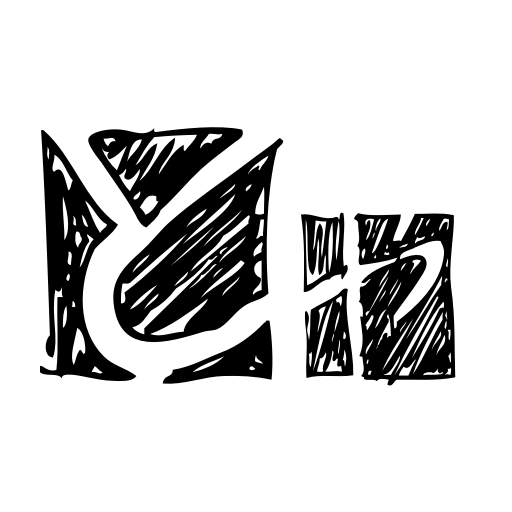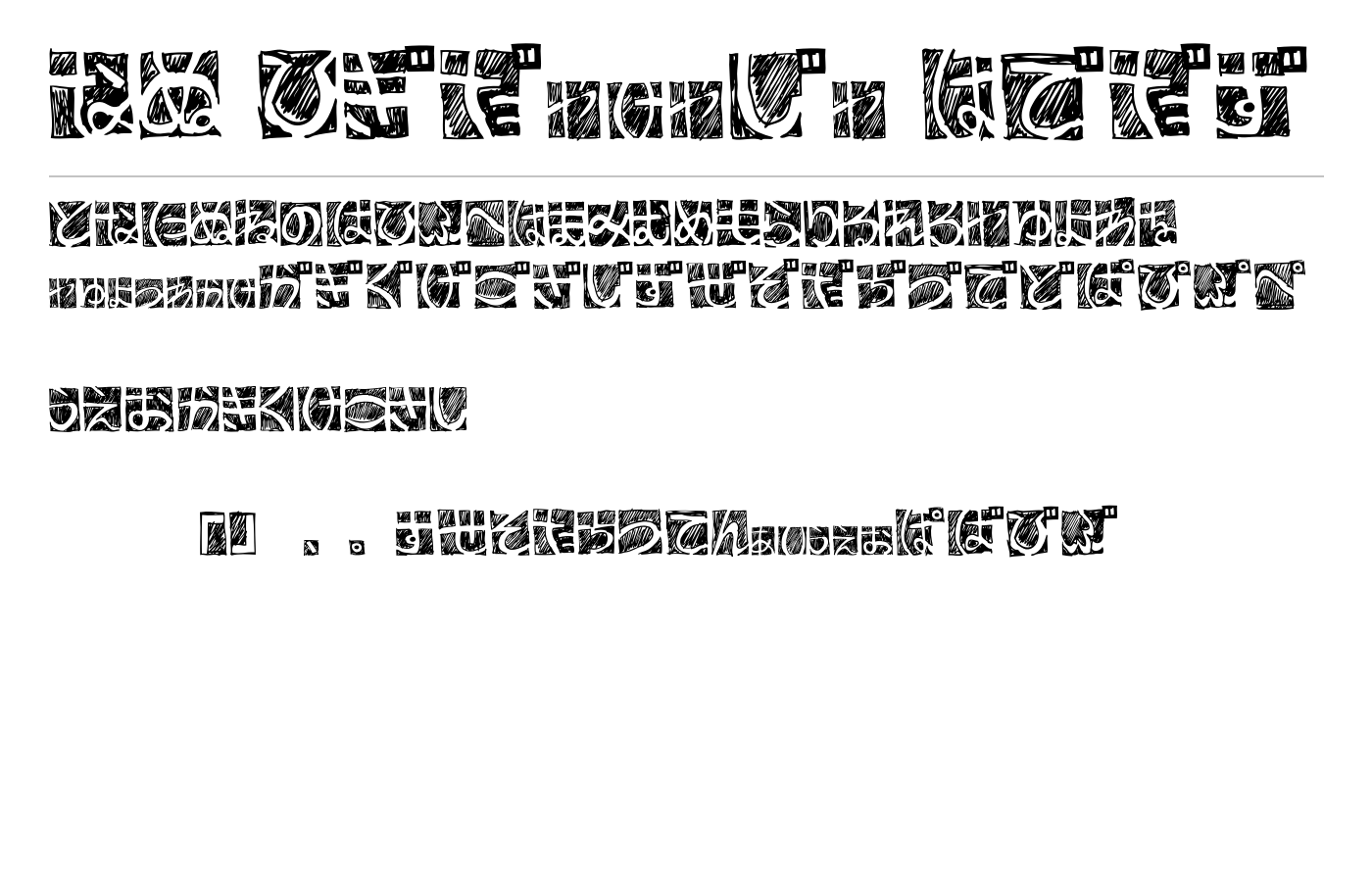
BD Hiragana Kuro Font is a highly decorative, blocky display typeface that blends artistic, hand-drawn textures with strong, geometric shapes. Its bold weight and intricate, textured lines create a playful yet structured appearance, ideal for eye-catching headlines, posters, and creative packaging where a distinctive and memorable style is desired. This font works best in designs that call for a unique, artistic flair with a modern, handcrafted vibe.
BD Hiragana Kuro Font
About BD Hiragana Kuro Font
| Font family | BD Hiragana Kuro Font |
| Languages supported | Latin, Hiragana, Symbols |
| Release date | 2011-12-14 |
| Designer | Lopetz |